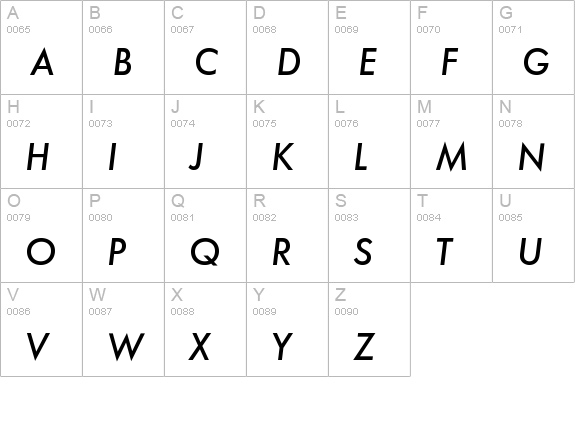
FuturaEF-MediumObl Font Details
FuturaEF-MediumObl is a versatile and stylish typeface that exudes modernity and sophistication. With its sleek and distinctive design, this font is perfect for a wide range of projects, from branding to editorial design. The medium oblique style adds a touch of elegance and dynamism to any text. What's even better is that FuturaEF-MediumObl is available for free download at FontsMarket.com. This means you can easily access this high-quality font and use it in your projects without any cost. Don't miss out on the opportunity to enhance your designs with this beautiful and eye-catching typeface.